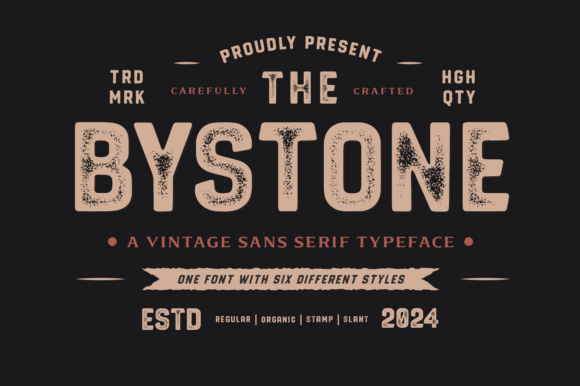
Bystone Font: Elevate Your Designs with a Timeless Vintage Display Sans Serif
In the realm of typography, a well-chosen font can make all the difference in the success of a design project. For those seeking a vintage-inspired touch with a classic yet natural character, Bystone Font is an exceptional choice. This versatile typeface is designed to bring authentic personality and timeless style to a wide range of creative projects, from bold branding and standout logos to editorial headlines and social media graphics.
The Bystone Font Family: A Range of Styles to Suit Every Need
The Bystone Font family comprises four distinct styles: Regular, Organic, Stamp, and Slant. Each style offers a unique take on the classic sans serif, allowing designers to choose the perfect variation to match their project’s tone and aesthetic.
Bystone Regular: Clean, Balanced Shapes with a Classic Presence
The Bystone Regular style is characterized by its clean, balanced shapes and classic presence. This style is ideal for designs that require a strong, yet understated font. The Regular style provides a solid foundation for branding, logos, and editorial headlines, making it an excellent choice for projects that demand a sense of tradition and stability.
Bystone Organic: Subtle Handcrafted Details for a Natural Look
For designs that require a more natural, handcrafted feel, Bystone Organic is the perfect choice. This style introduces subtle handcrafted details that give the font a warm, organic appearance. Bystone Organic is well-suited for projects that aim to convey a sense of earthiness and authenticity, such as eco-friendly branding, packaging design, and editorial content.
Bystone Stamp: A Rugged, Weathered Feel for Added Character and Depth
Bystone Stamp brings a rugged, weathered feel to the Bystone Font family. This style is perfect for designs that require a sense of ruggedness and character. Bystone Stamp can add depth and visual interest to a wide range of projects, from bold branding and logos to editorial headlines and social media graphics.
Bystone Slant: Gentle Motion and an Expressive Vibe
For designs that require a sense of motion and expressiveness, Bystone Slant is an excellent choice. This style features a gentle slant that creates a dynamic, energetic feel. Bystone Slant is well-suited for projects that aim to convey a sense of playfulness and creativity, such as social media graphics, editorial content, and branding for creative industries.
Why Choose Bystone Font for Your Design Projects?
Bystone Font offers a range of benefits that make it an attractive choice for designers. Some of the key advantages of using Bystone Font include:
- Timeless style: Bystone Font features a classic yet natural character that won’t go out of style.
- Versatility: The Bystone Font family comprises four distinct styles, allowing designers to choose the perfect variation to match their project’s tone and aesthetic.
- Vintage-inspired touch: Bystone Font brings a vintage-inspired touch to designs, making it perfect for projects that require a sense of nostalgia and authenticity.
- Authentic personality: Bystone Font is designed to bring authentic personality to creative projects, helping designers to create unique and memorable designs.
Tips for Using Bystone Font in Your Design Projects
To get the most out of Bystone Font, here are some tips for using it in your design projects:
- Pair with complementary fonts: Bystone Font can be paired with complementary fonts to create visual interest and hierarchy in designs.
- Experiment with different styles: The Bystone Font family comprises four distinct styles, so don’t be afraid to experiment with different styles to find the one that works best for your project.
- Use for headlines and titles: Bystone Font is perfect for headlines and titles, where its bold and expressive style can make a lasting impression.
- Consider the tone and aesthetic: When choosing a Bystone Font style, consider the tone and aesthetic of your project to ensure that the font aligns with your design goals.
In conclusion, Bystone Font is a versatile and stylish typeface that can elevate a wide range of design projects. With its classic yet natural character, vintage-inspired touch, and range of styles, Bystone Font is perfect for designers seeking to add a touch of timeless style and authentic personality to their designs. Whether you’re working on bold branding, standout logos, editorial headlines, or social media graphics, Bystone Font is an excellent choice.